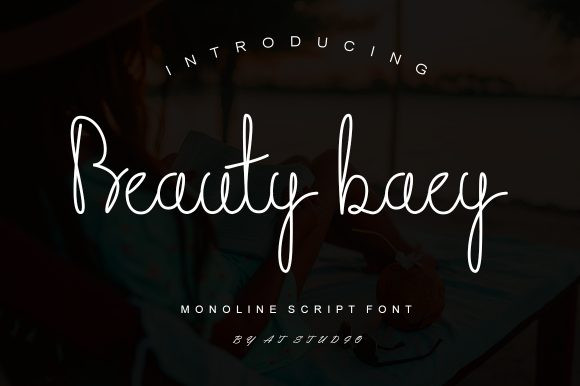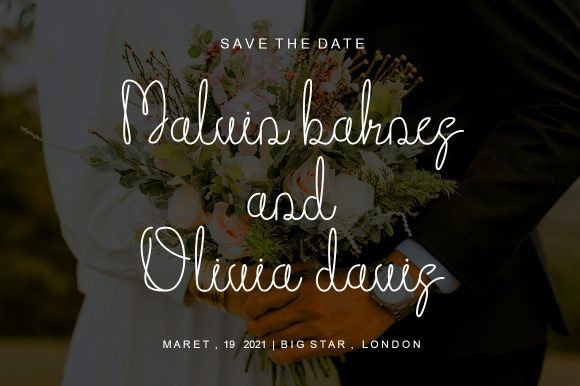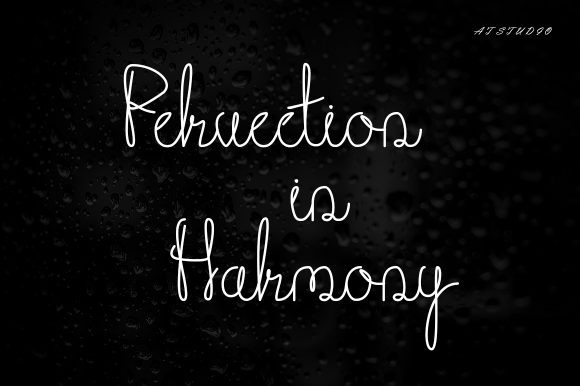
Beauty Baey Font
Beauty Baey is a flowing handwritten font, described by an elegant touch, perfect for your favorite projects. Fall in love with its incredibly distinct and timeless style and use it to create spectacular designs!